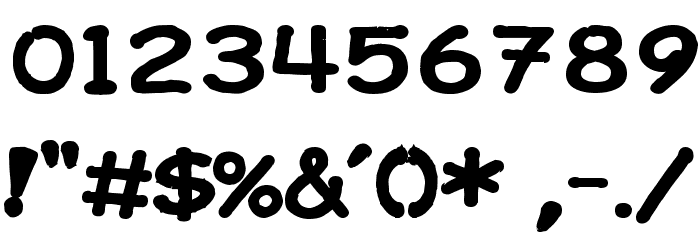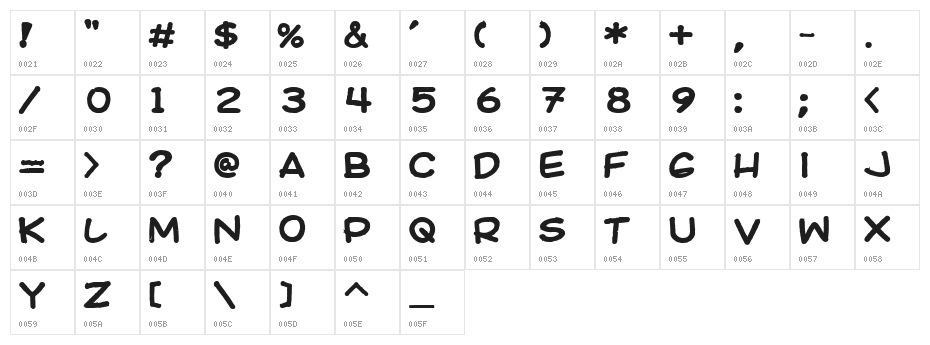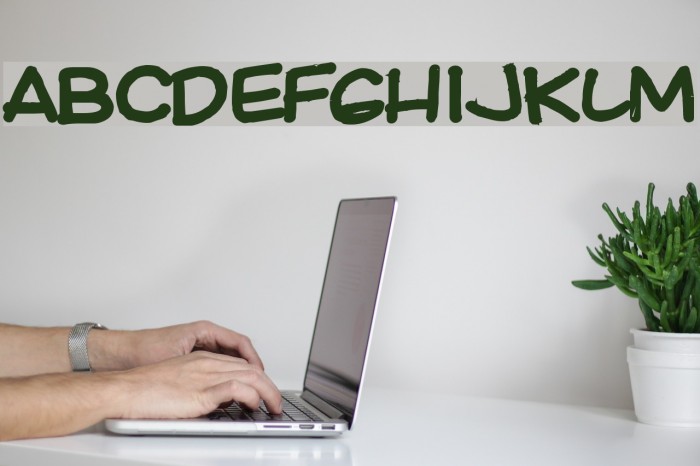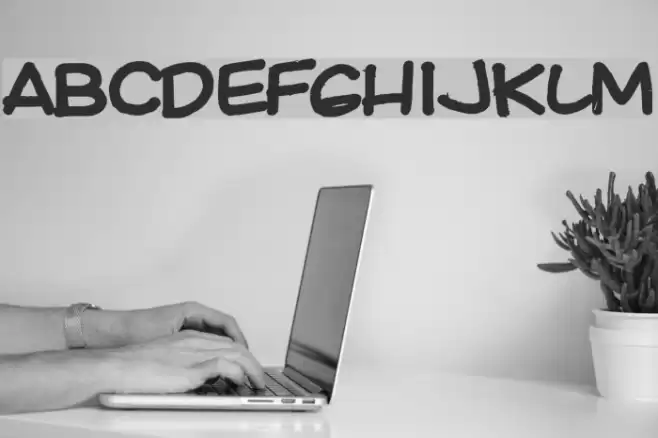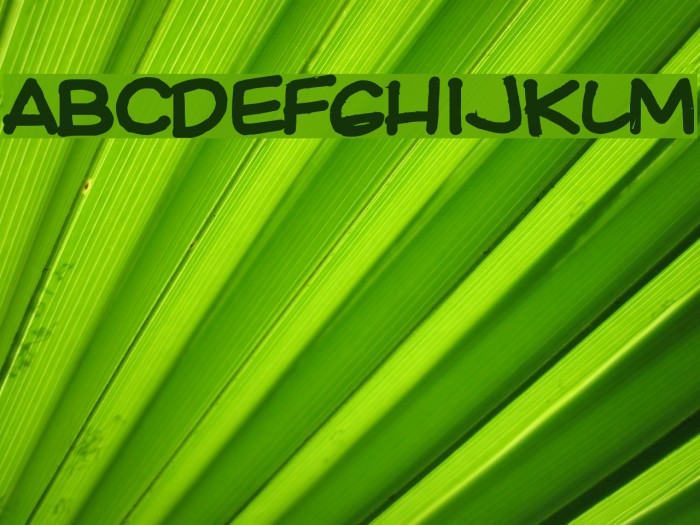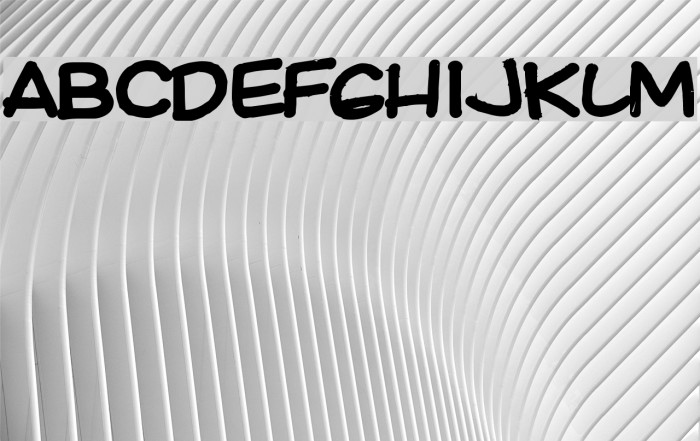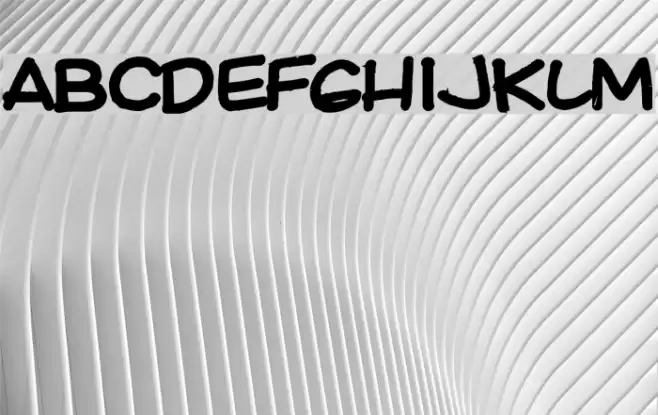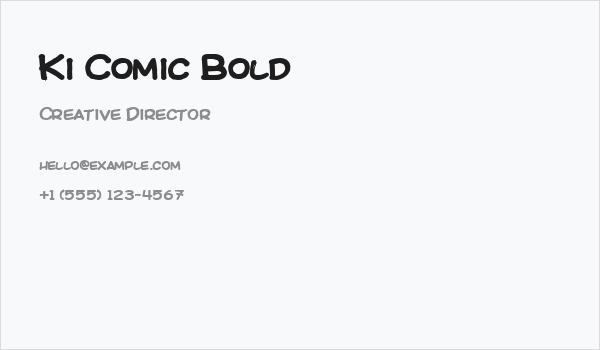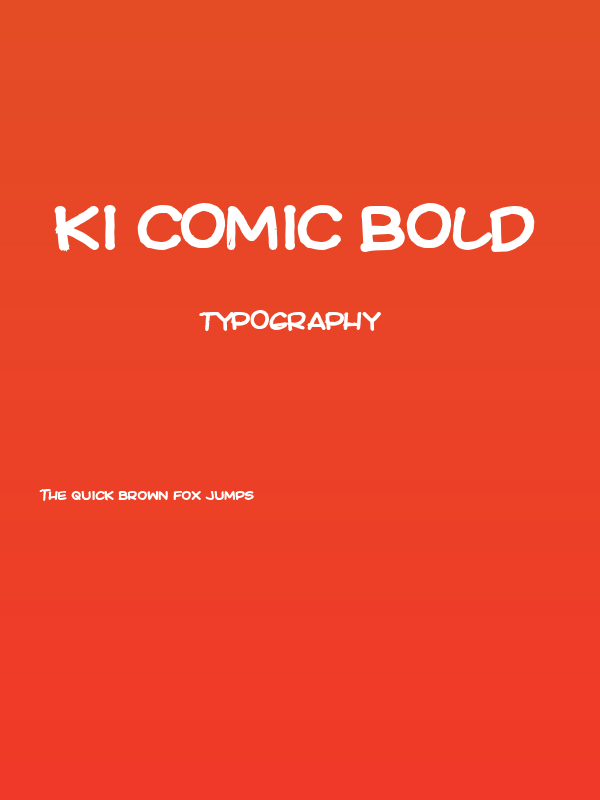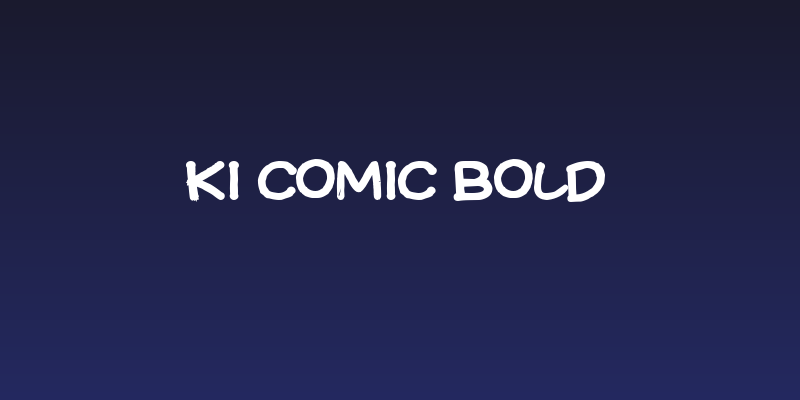
Ki Comic Bold Font
Ki Comic Bold Description
This font features a playful and bold style, reminiscent of comic book lettering. The characters are rounded and slightly irregular, giving them a hand-drawn appearance. The uppercase and lowercase letters maintain a consistent weight, contributing to a cohesive look. The numbers and special characters are designed with the same playful aesthetic, making them suitable for informal and fun designs. The overall appearance is energetic and lively, making it ideal for projects that require a touch of whimsy and creativity.
| Overall Style | Playful, Comic |
| Proposed Projects | Ideal for comic books, children's books, playful branding, and casual posters. |